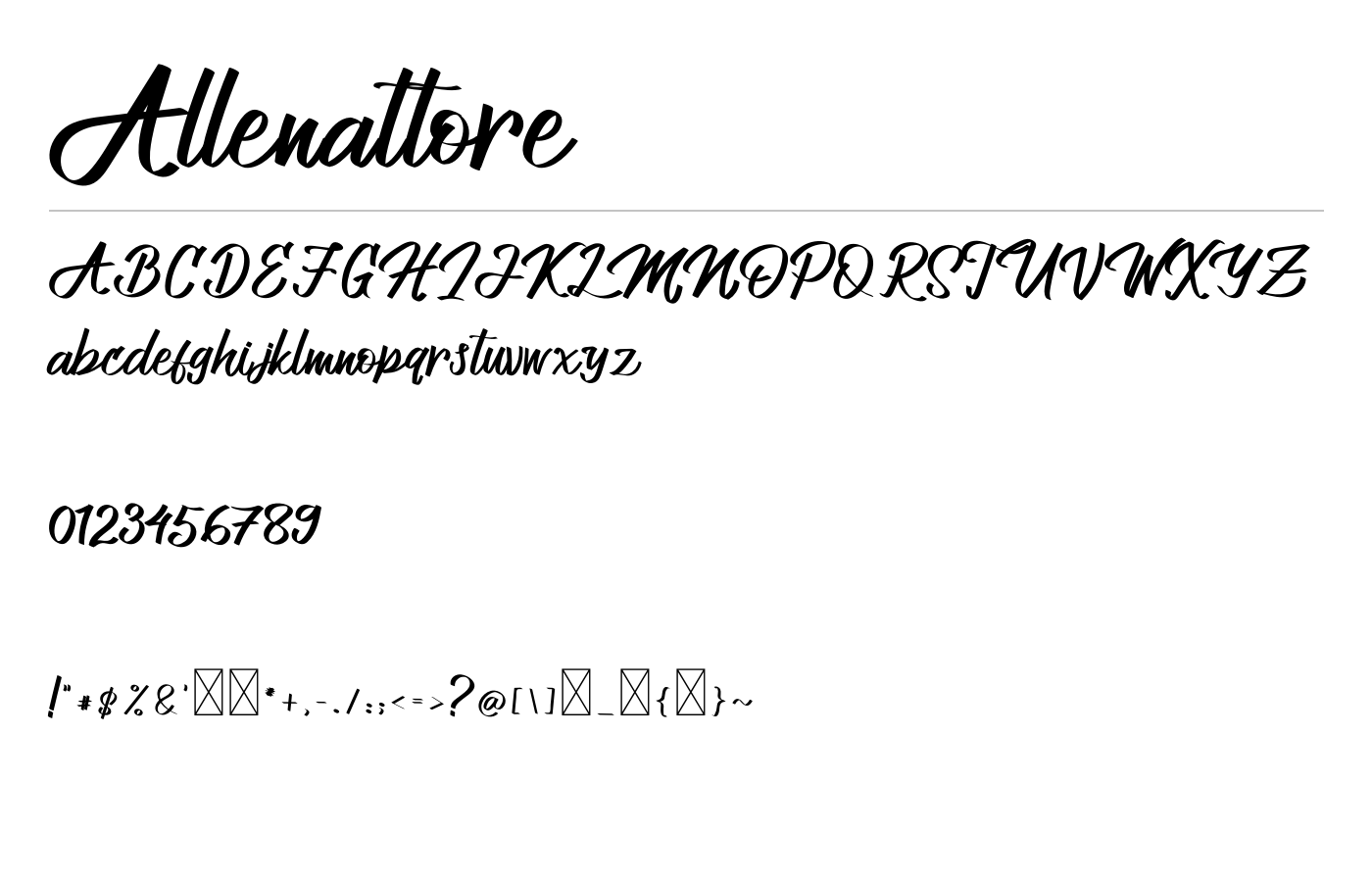
Allenattore is a stylish script font with flowing, elegant letterforms that combine smooth curves and moderate contrast, giving it a graceful, handwritten feel. Its medium weight and slightly condensed width make it ideal for sophisticated branding, invitations, and headlines where a personal yet refined touch is needed. This font shines in contexts that want to evoke warmth, creativity, and a timeless charm.
Allenattore Font
About Allenattore Font